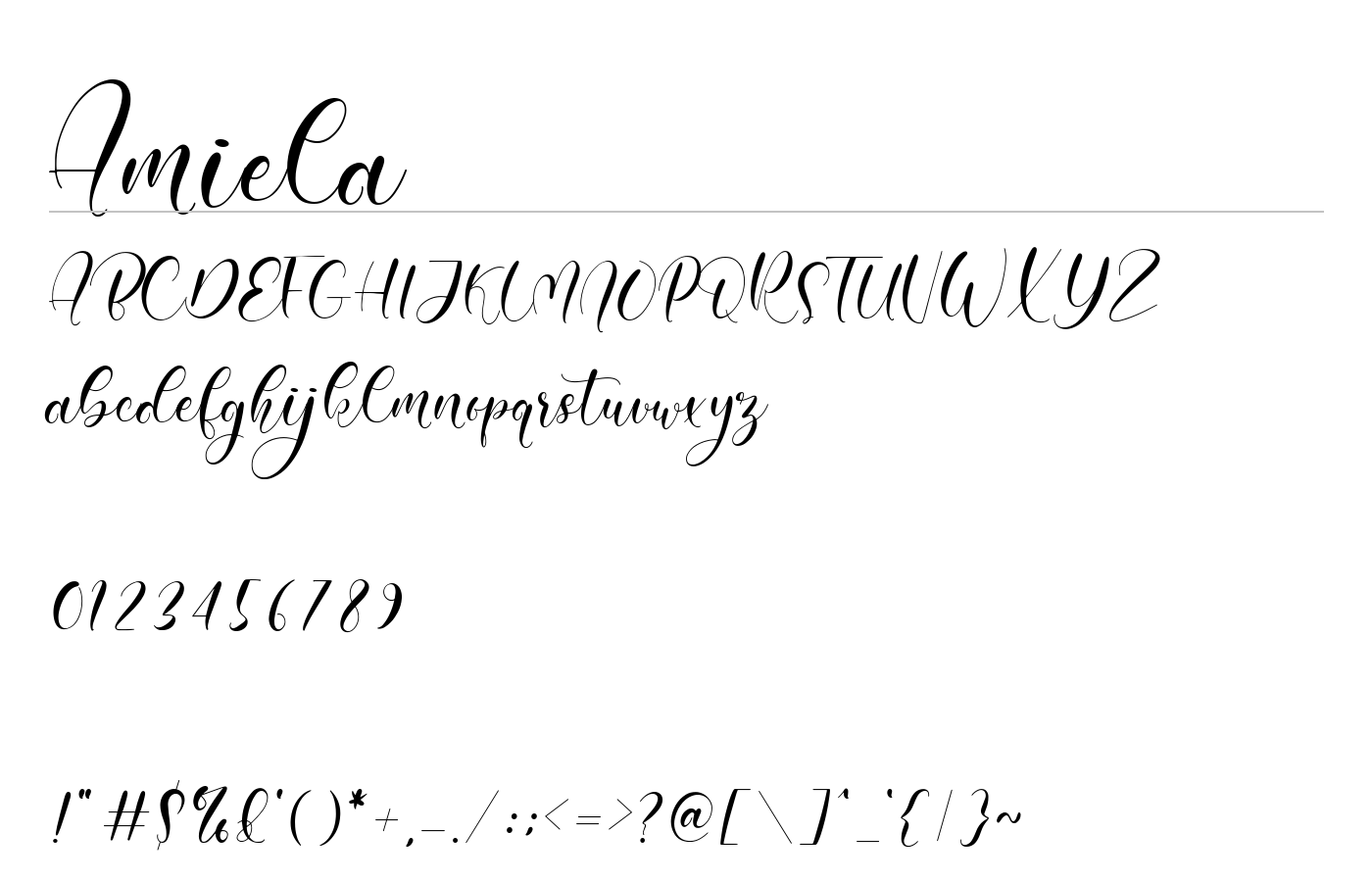
Amiela is an elegant script font featuring delicate, flowing lines and graceful loops that create a refined, handwritten feel. Its light weight, high contrast strokes, and distinctive flourishes make it perfect for luxury branding, wedding invitations, and sophisticated editorial designs that seek a touch of romance and charm. This font works best in display settings where its stylish personality can truly shine.
Amiela Font
About Amiela Font
| Font family | Amiela Font |
| Designer | Ghazi Humam Fauzan |